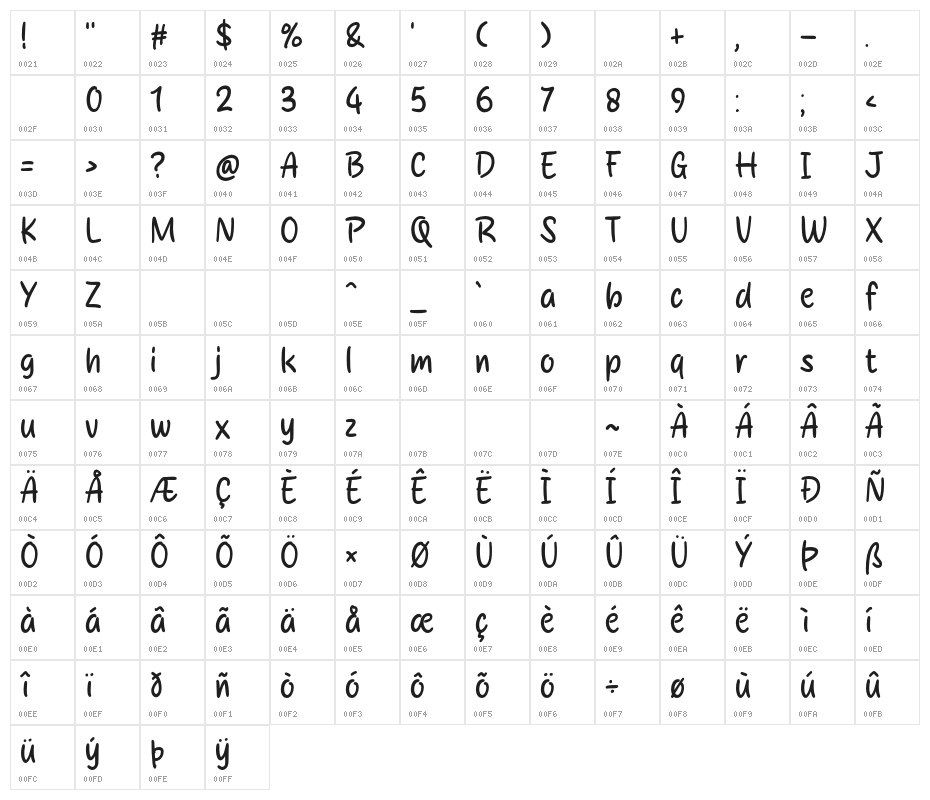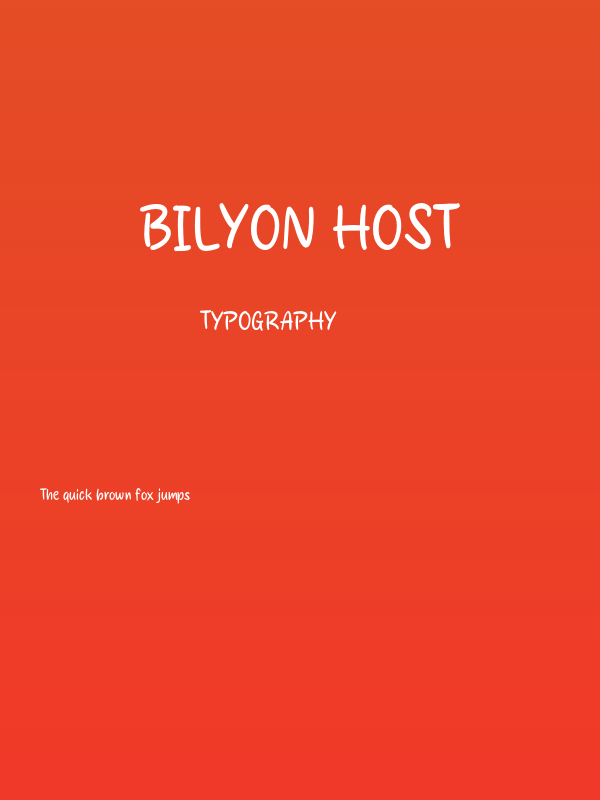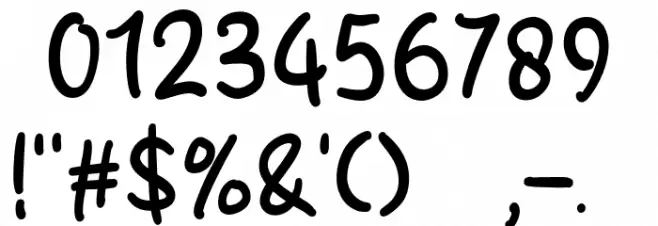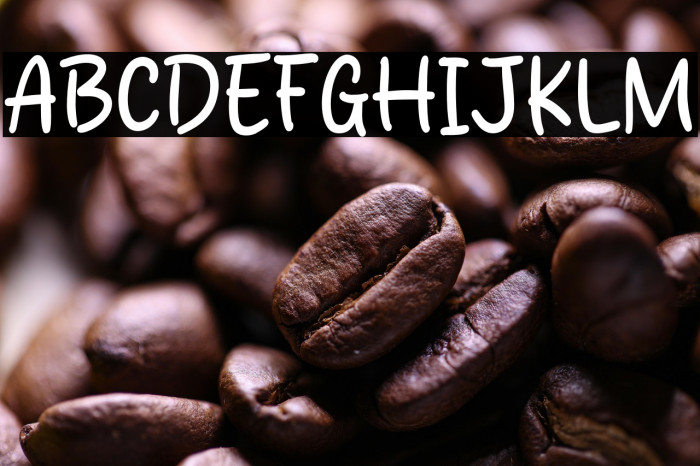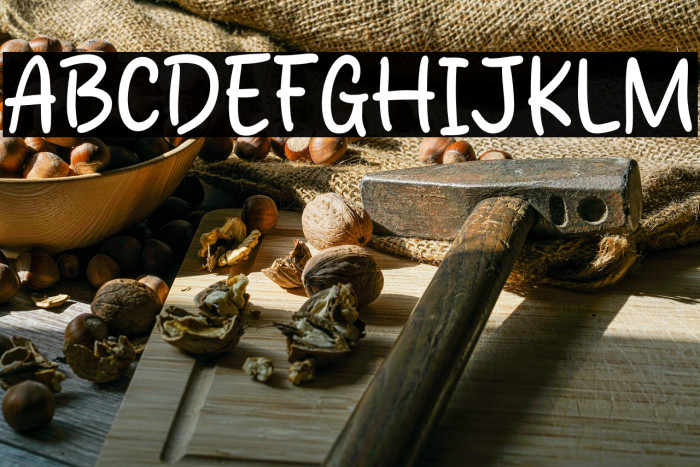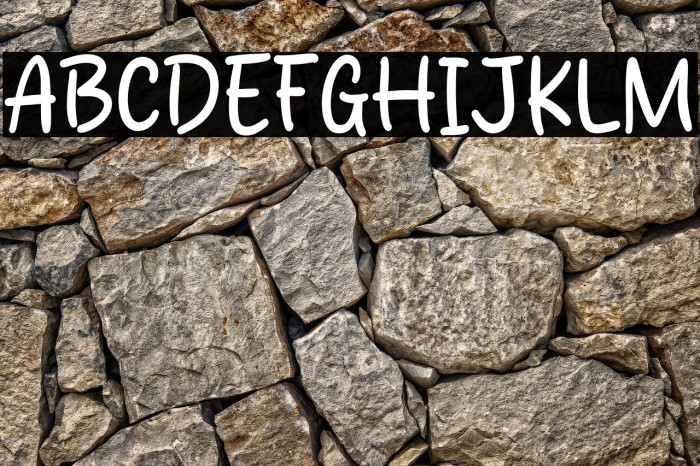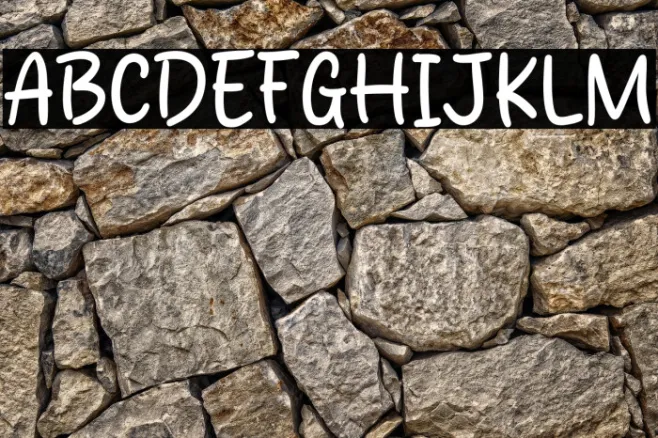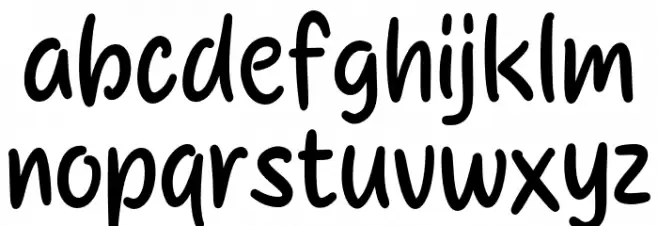
Bilyon Host Font
Bilyon Host Description
This font features a playful and casual handwritten style, characterized by its smooth, rounded strokes and slightly irregular letterforms that convey a sense of warmth and approachability. The uppercase letters maintain a consistent height, while the lowercase letters exhibit a gentle flow, enhancing readability. Numbers and special characters are crafted with the same informal charm, making them blend seamlessly with the alphabet. The overall appearance is friendly and inviting, suitable for projects that require a personal touch.
| Use Case | Headlines, Informal text, Branding |
| Proposed Projects | Ideal for greeting cards, children's books, informal invitations, and playful branding. |